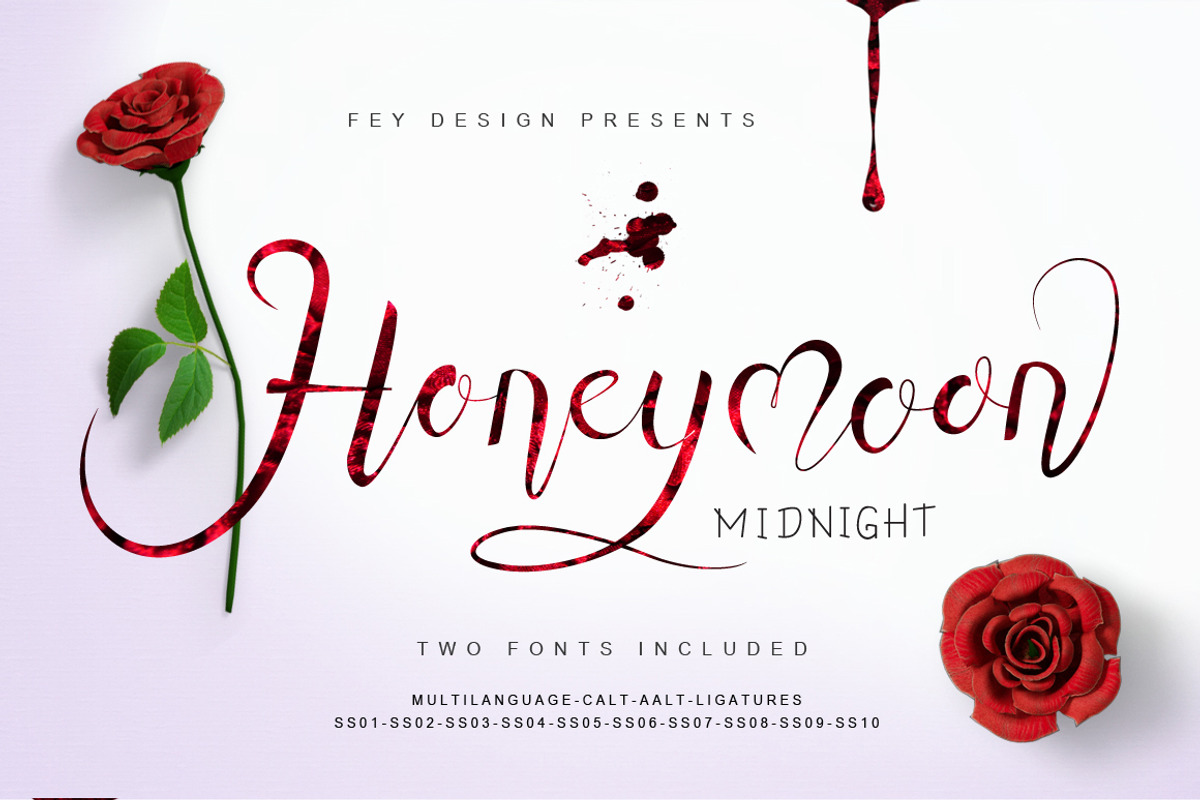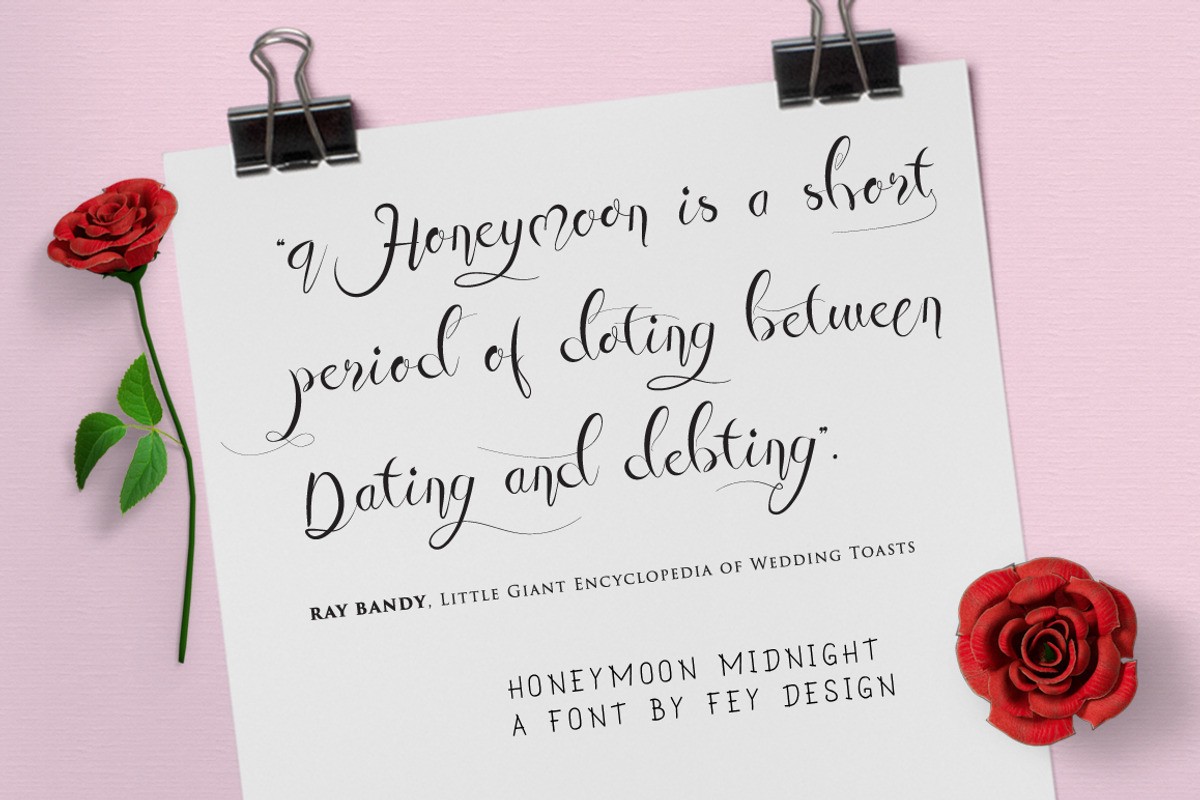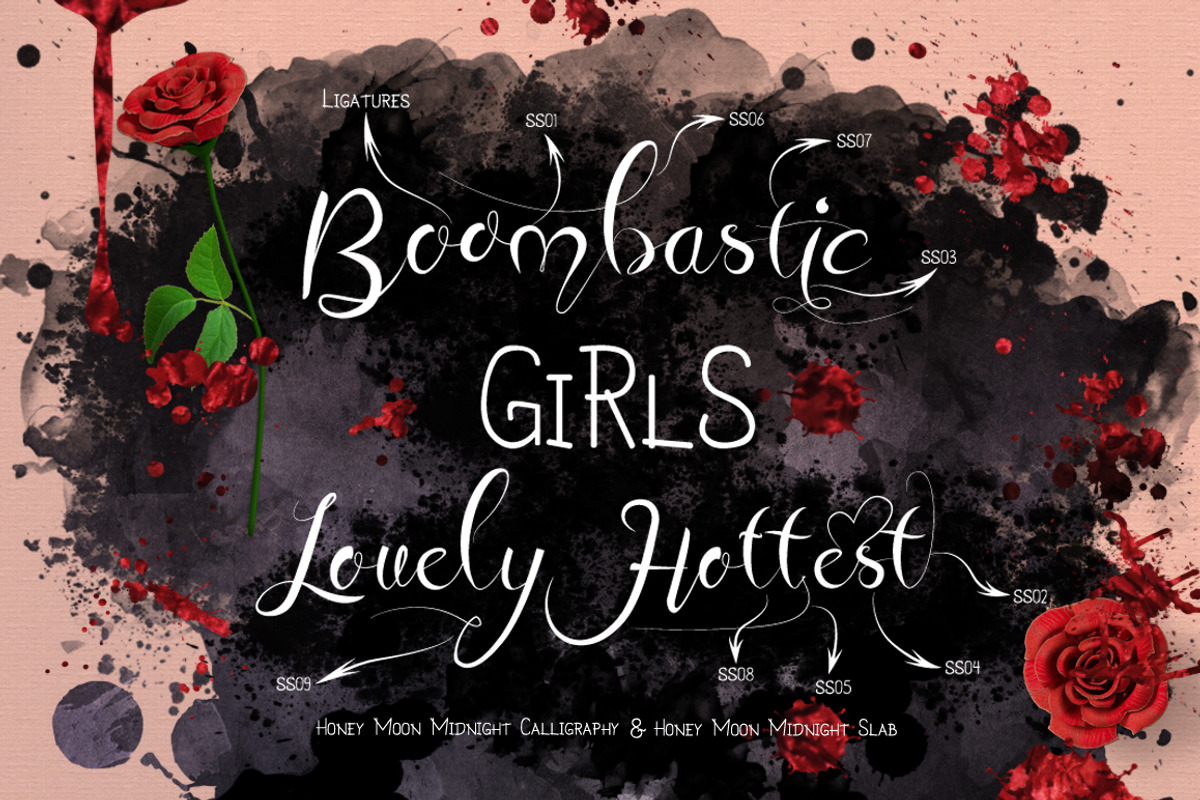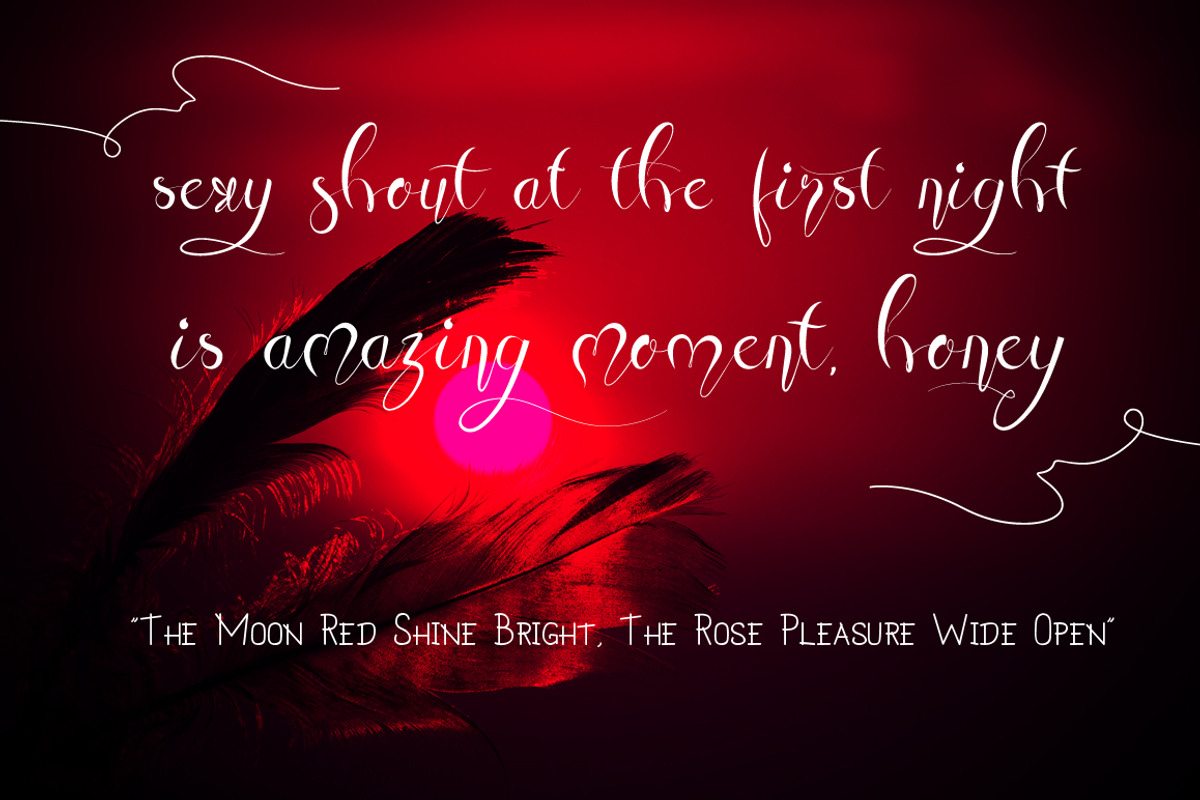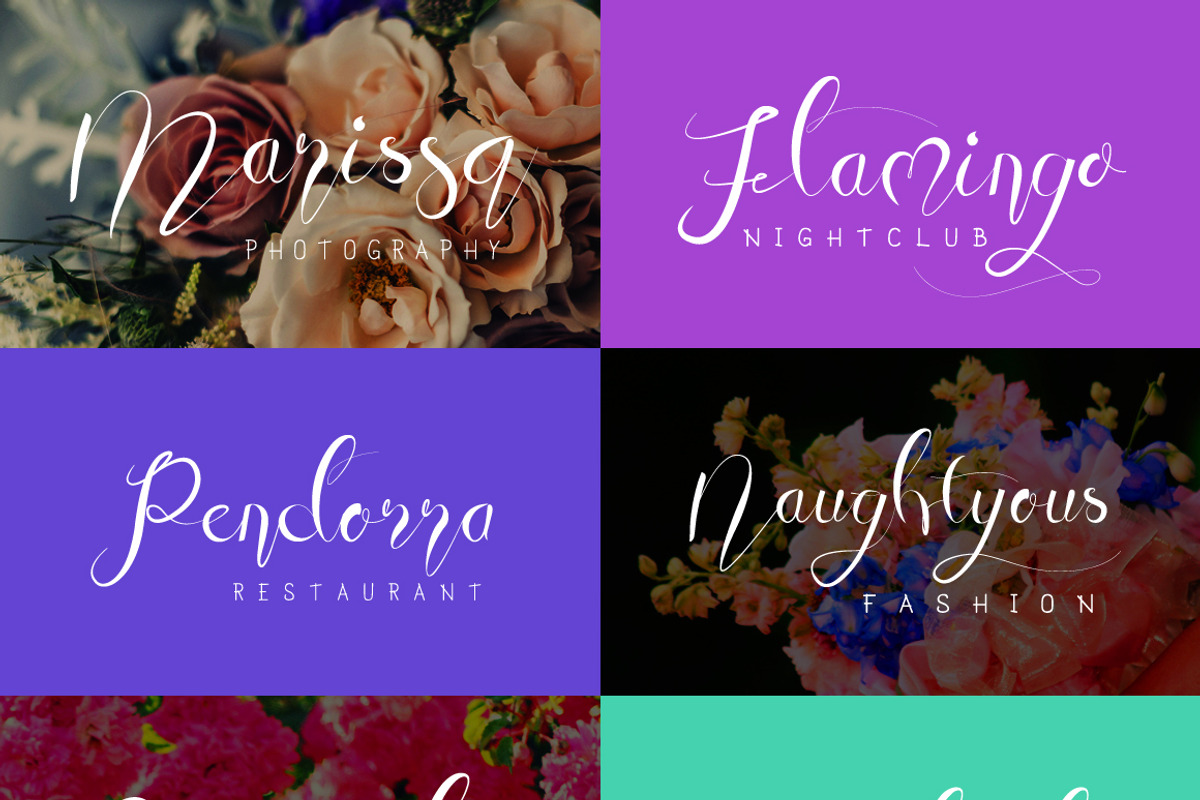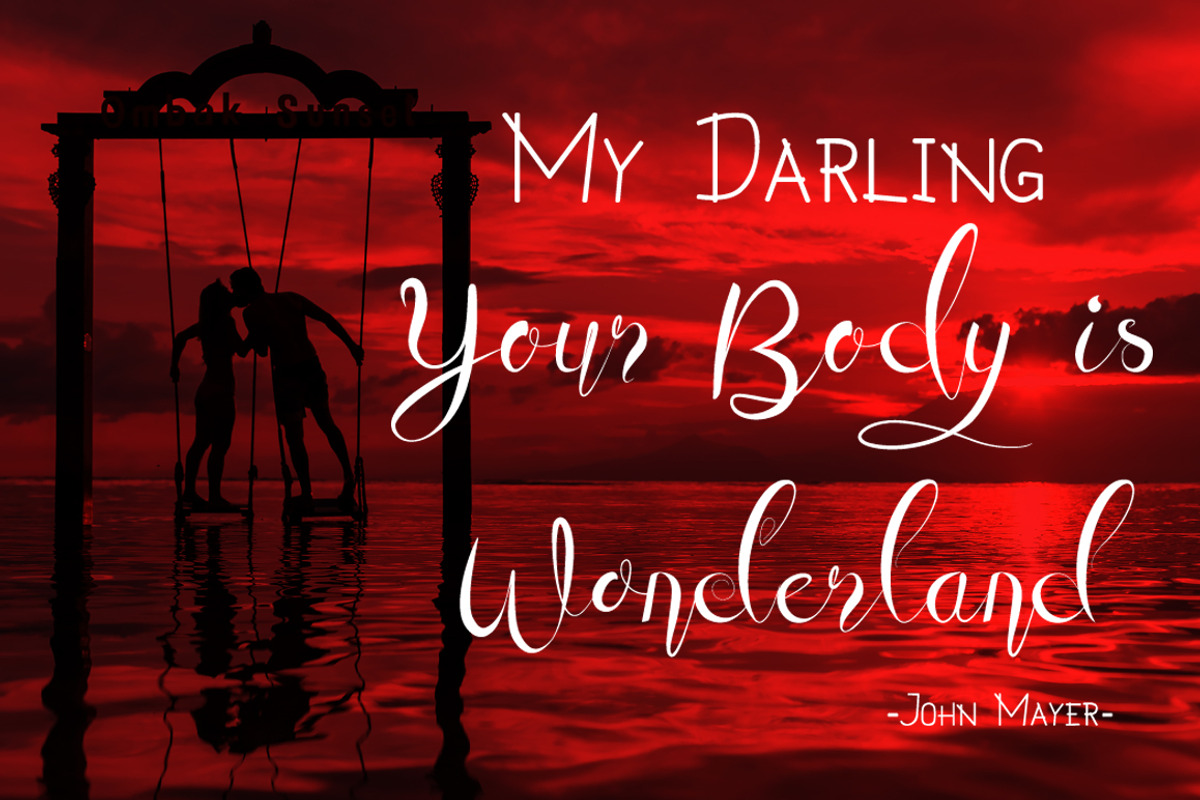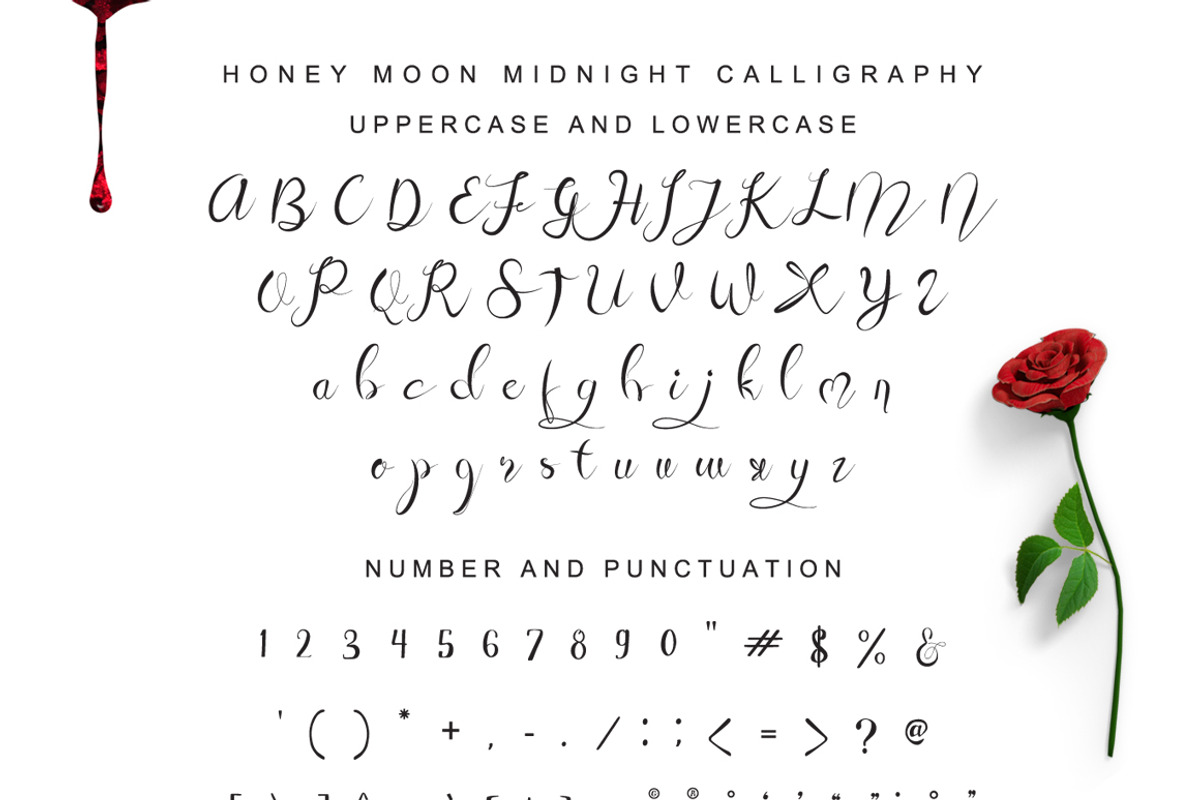
Honey Moon Midnight - Two Fonts
Honey Moon Midnight - Two Fonts by FHFont is a font selected for branding, posters, packaging, typography.
- Honey Moon Midnight Calligraphy
- Honey Moon Midnight Swashes Calligraphy
- Honey Moon Midnight Alt 01 Calligraphy
- Honey Moon Midnight Alt 02 Calligraphy
- Honey Moon Midnight Alt 03 Calligraphy
- Honey Moon Midnight Alt 04 Calligraphy
- Honey Moon Midnight Slab Slab
Why Honey Moon Midnight - Two Fonts is worth a look
Honey Moon Midnight - Two Fonts by FHFont fits naturally into Branding, posters, packaging, typography.